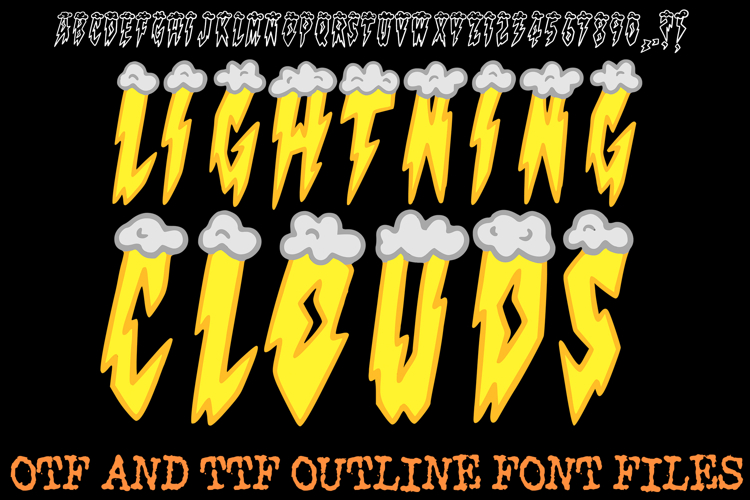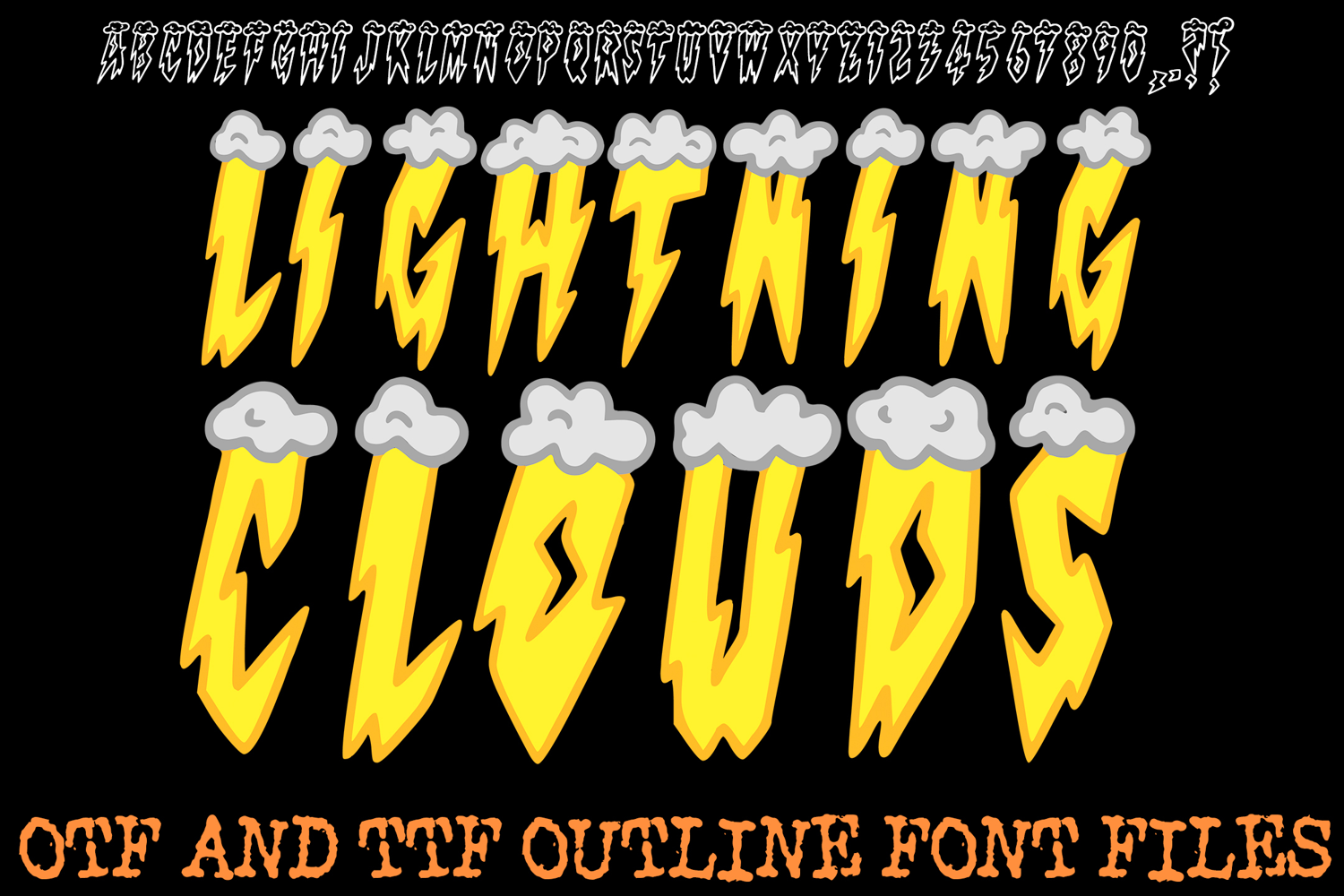
Lightning Clouds Thunderbolt Lettering ABC Electric Font
Bring the storm to your designs with Lightning Clouds Font, a bold and electrifying display typeface that combines thunderbolt-shaped letters with playful cartoon clouds! This dynamic and high-energy font crackles with excitement — perfect for comic titles, kids’ designs, gaming graphics, posters, and superhero themes.
The Lightning Clouds Font is packed with personality — its jagged, lightning-inspired strokes and fluffy cloud details create a fun and eye-catching look that energizes any project. Whether you’re designing for merchandise, YouTube graphics, event flyers, or branding, this font will strike your audience with creative power.
Unleash the storm and let your creativity strike with Lightning Clouds Font — bold, fun, and electrifying!